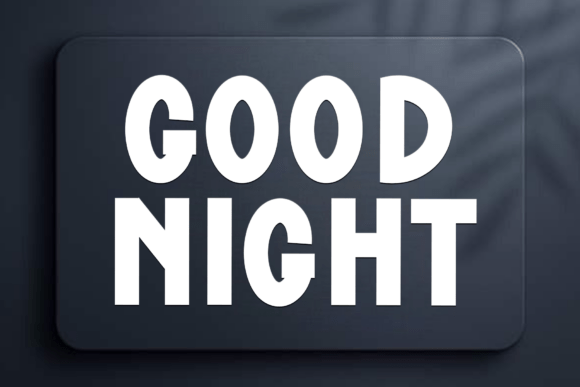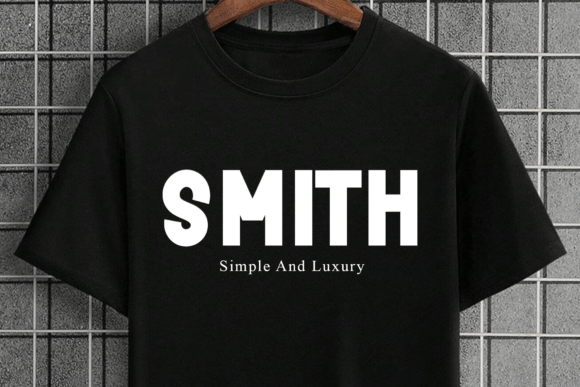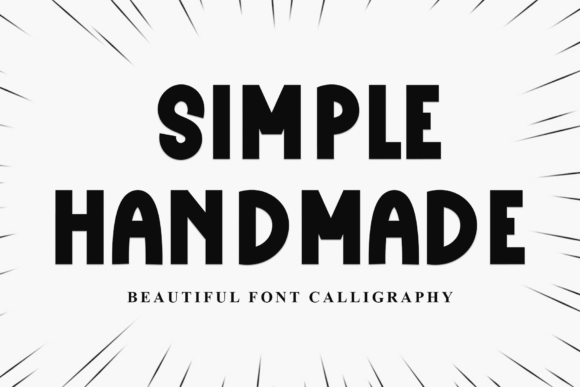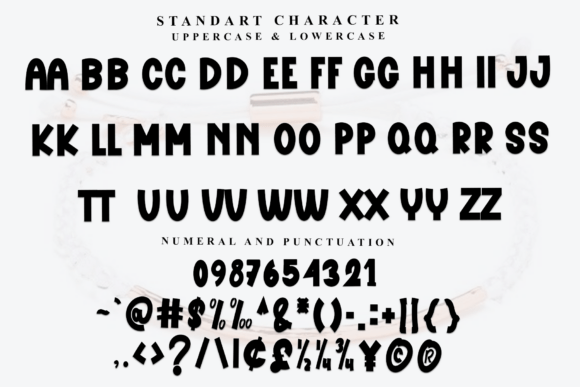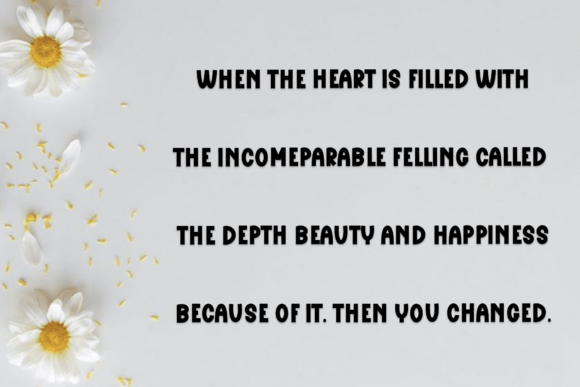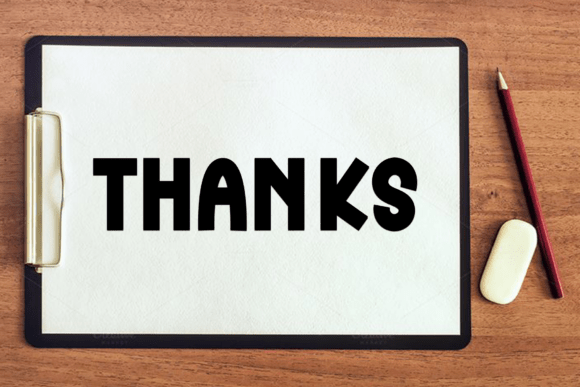
Introduction to Magic Disney Font
Have you ever been working on a creative project, pouring your heart and soul into it, only to realize that the right font is missing? It’s like trying to find the perfect missing piece of a puzzle. That’s exactly what happened to many designers when they stumbled upon the Magic Disney Font. This charming font has become a go-to design resource for anyone looking to add a touch of whimsy and friendliness to their work.
With its round, playful strokes and hand-drawn aesthetic, the Magic Disney Font is perfect for creating high-quality designs that stand out from the crowd. Whether you’re working on a personal project, designing social media graphics, or creating invitations, this font is sure to add a unique touch. And the best part? It’s available for free download, making it a valuable resource for designers of all levels.
Key Features of Magic Disney Font
- High-quality, vector-based design resource ideal for creative projects
- Unique, whimsical design style reminiscent of classic Disney magic, perfect for children’s books, greeting cards, and more
Honest Review: Magic Disney Font
I recently stumbled upon the Magic Disney Font, and I must say, it’s a delightful addition to any creative project. As a designer, I’m always on the lookout for high-quality design resources that can elevate my work, and this font definitely fits the bill.
What works well about the Magic Disney Font is its whimsical charm and playful aesthetic. The font is perfect for projects that need a touch of magic, such as children’s books, party invitations, or even branding for a fantasy-themed business. ✨
However, there are a few limitations to consider. The font is not suitable for serious or formal projects, as its playful nature may come across as unprofessional. Additionally, the font is not scalable for large-scale projects, so be sure to check the font’s limitations before using it. ⚠️
Overall, I’m impressed with the Magic Disney Font, and I would highly recommend it for any creative project that requires a touch of magic. Its high quality and free download make it a valuable resource for designers of all levels.
The Magic Disney Font is a high-quality, free download design resource that can add a touch of magic to any creative project. With its unique and whimsical design, this font is perfect for designers and artists looking to add a touch of Disney magic to their work.
The Magic Disney Font is perfect for designers and artists working on projects that require a touch of magic and whimsy. Some common use cases include:
- Social media graphics and advertisements
- Presentations and slideshows
- Party invitations and decorations